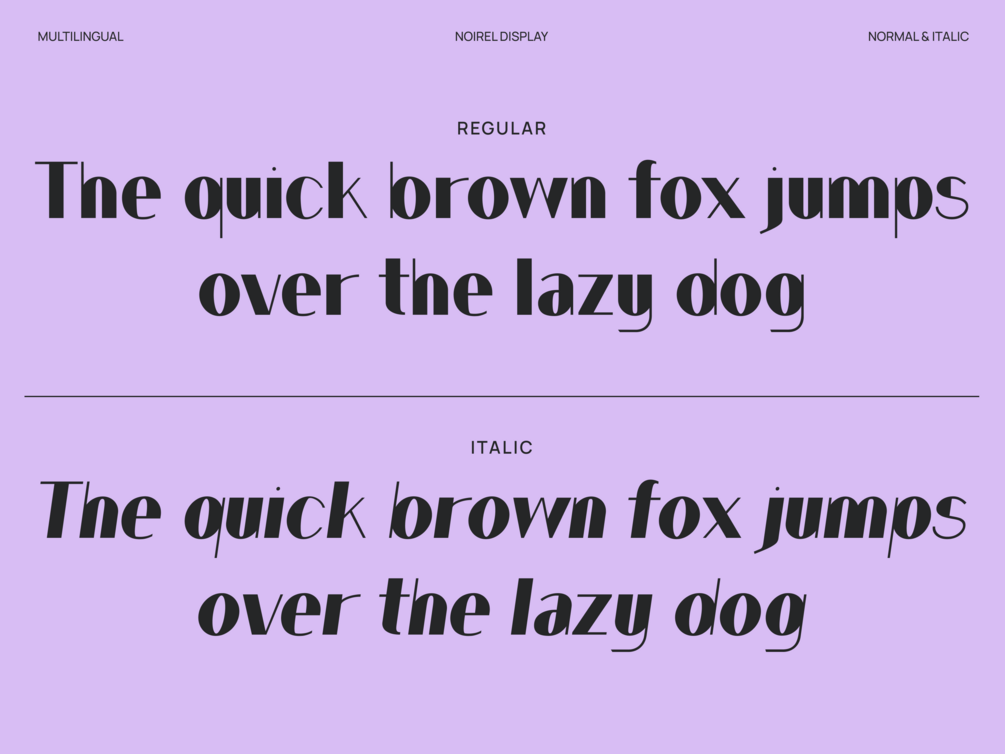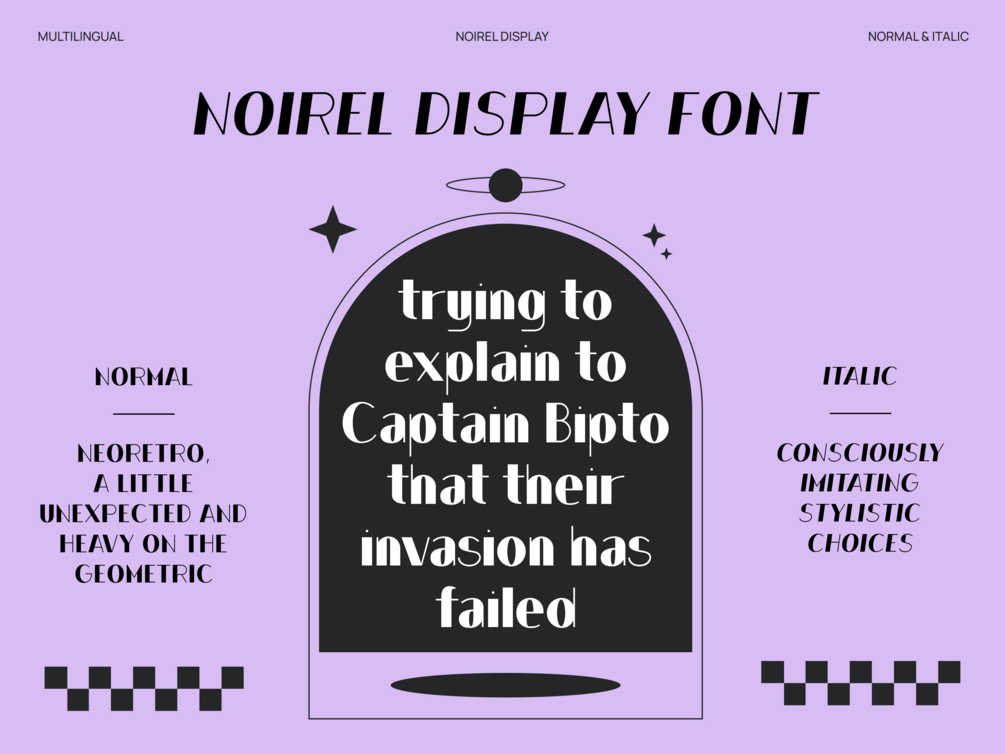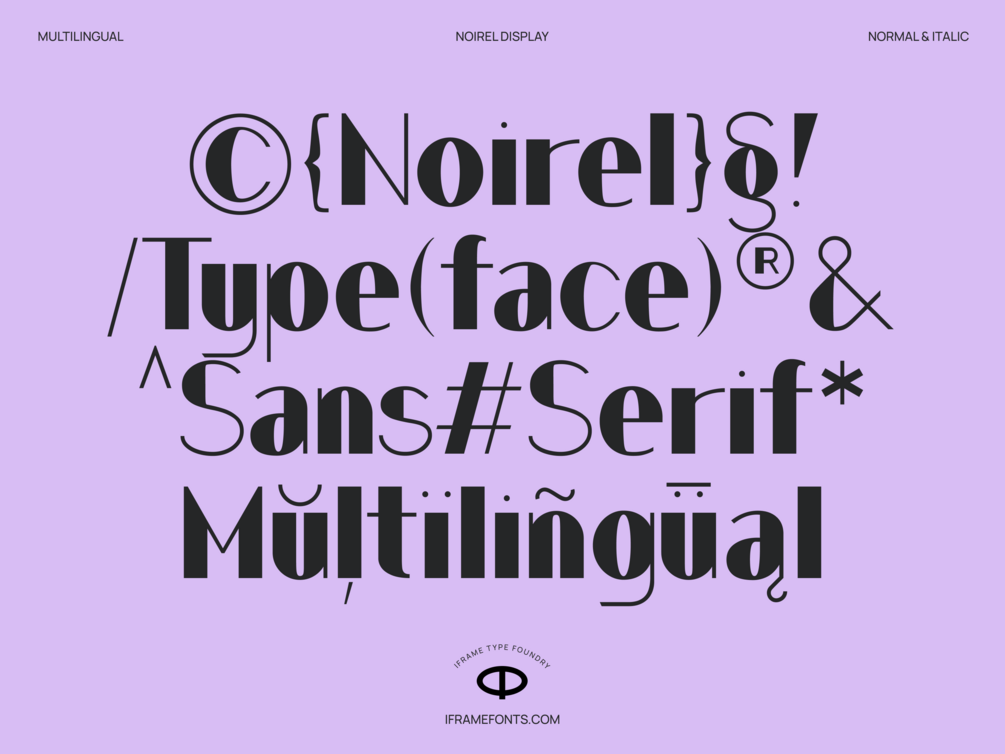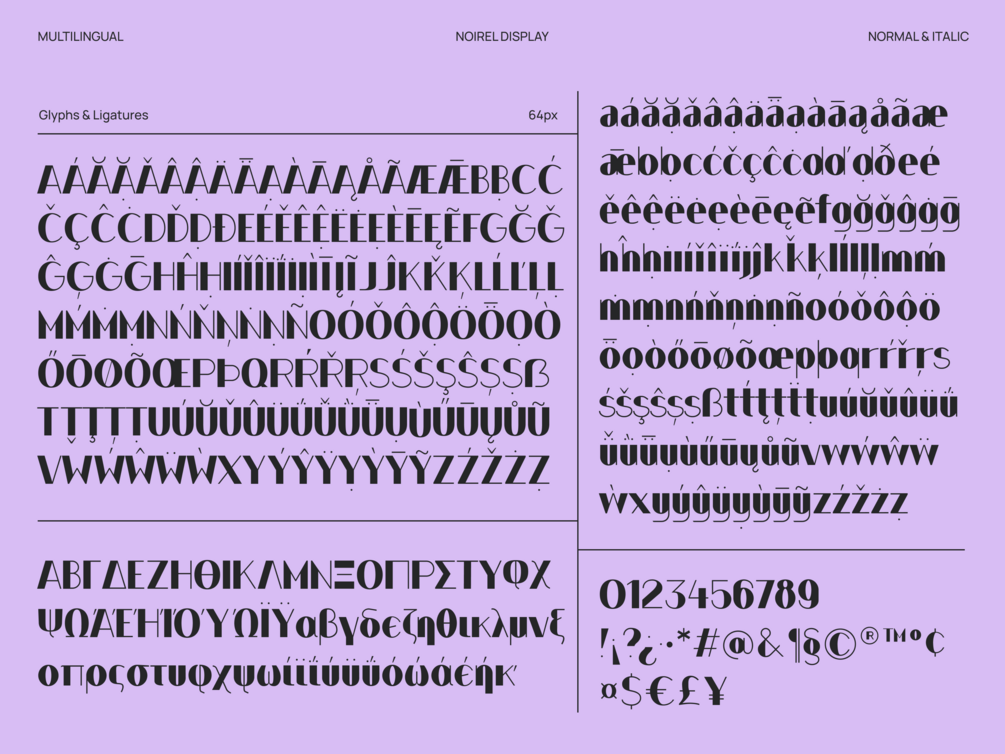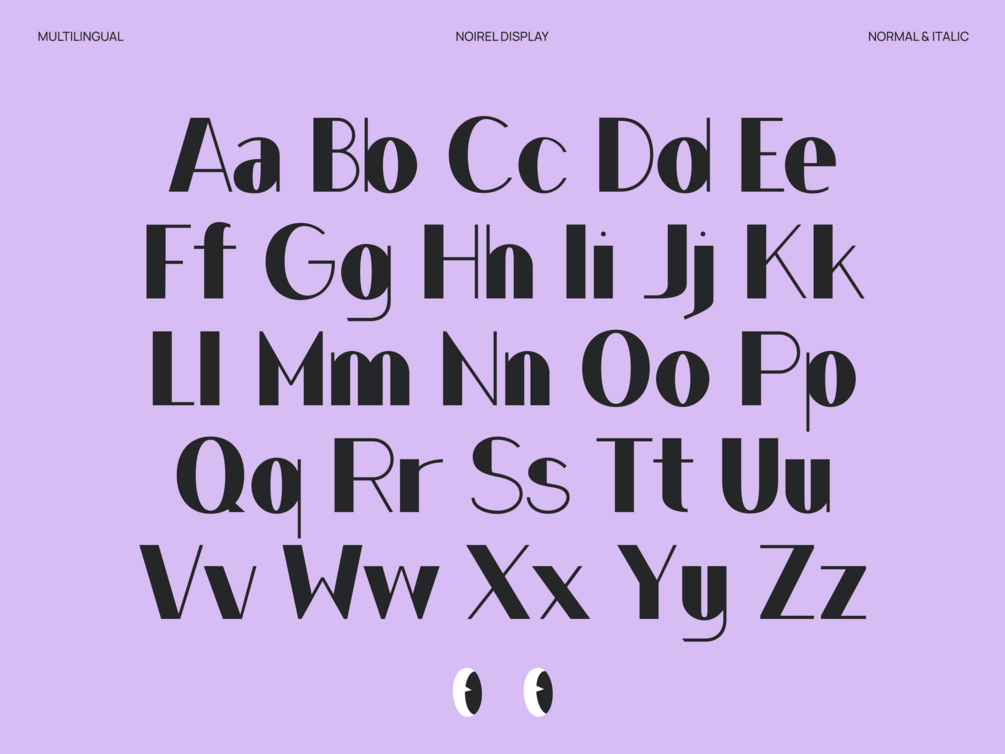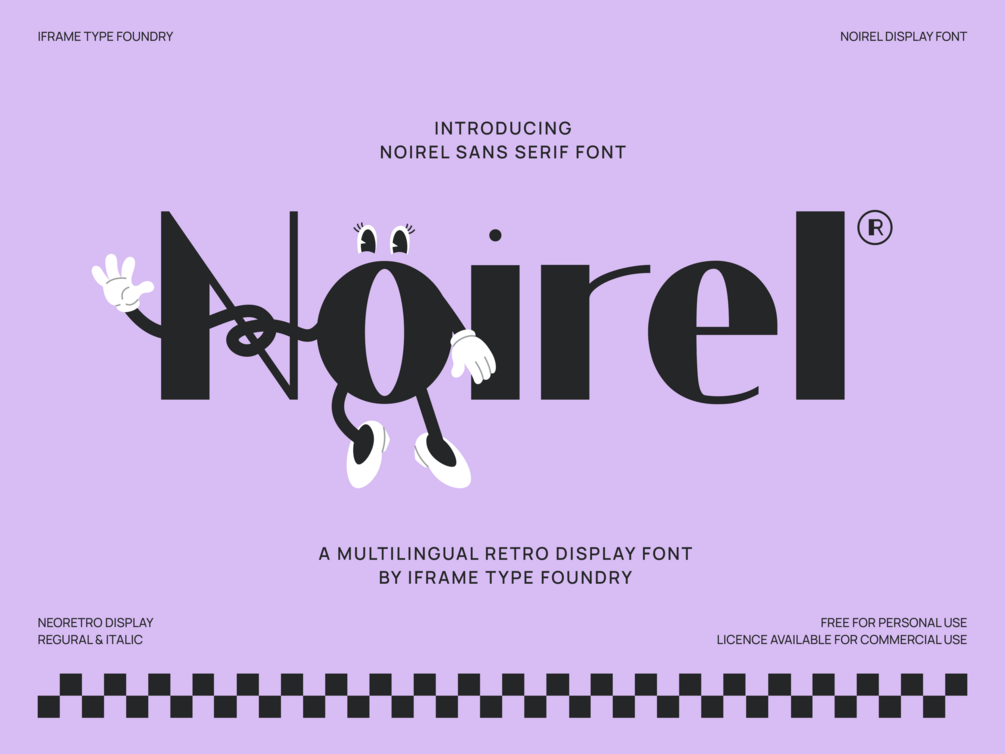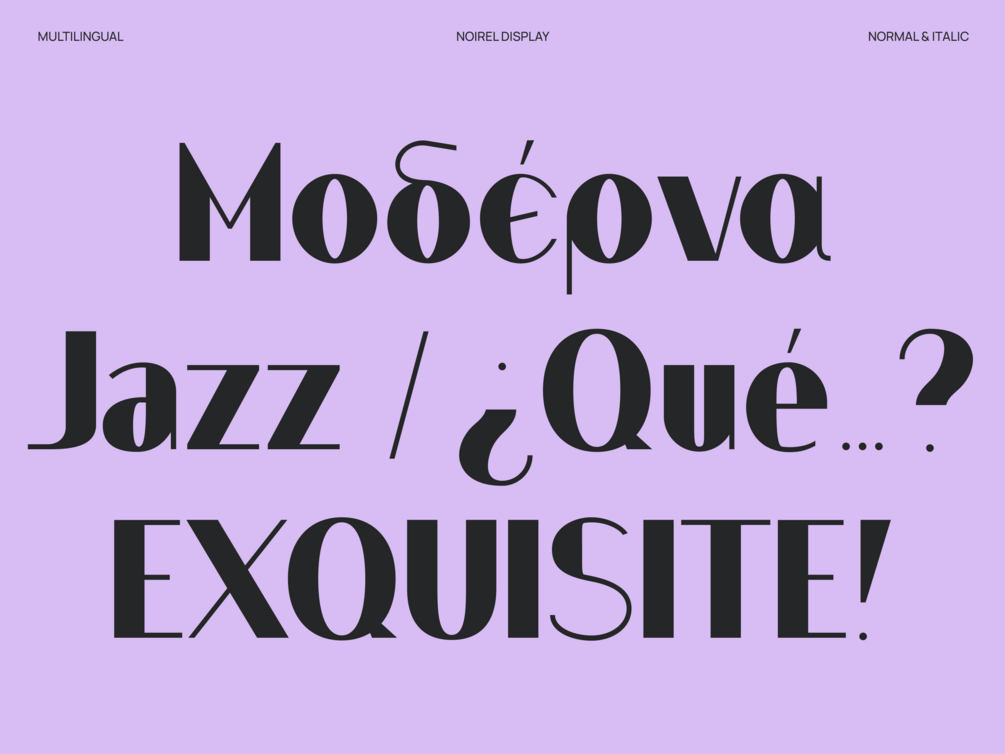
Noirel Display Font
Noirel is a bold retro display font with a unique twist: its glyphs feature a bold structure paired intentionally with thin lines.
This purposeful design choice creates a dynamic contrast that captures the playful spirit of old cartoons, where bold outlines and delicate details often coexist. The bold framework ensures each character stands strong and impactful, while the thin lines add an intricate, hand-drawn quality that mimics the charming imperfections of vintage animation. Noirel is perfect for projects seeking to infuse a sense of nostalgia and fun, drawing on the aesthetics of classic cartoons while maintaining a fresh, modern edge.
- Styles: Regular & Italics
- Multilingual support: Latin, Greek